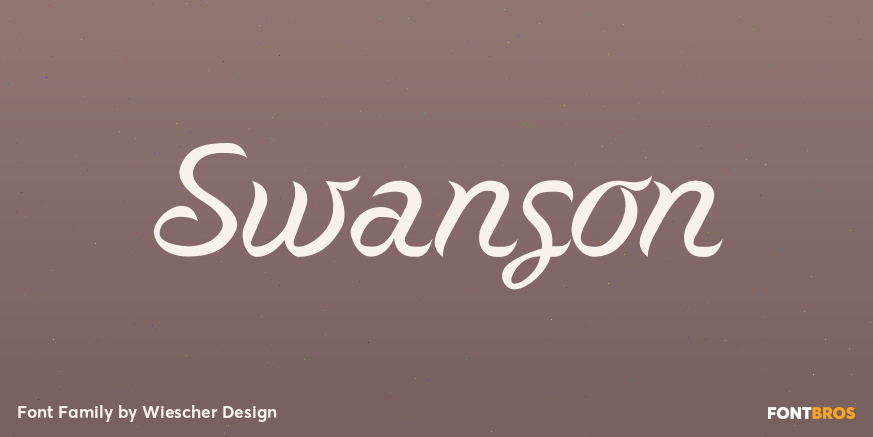
Swanson
About Swanson
'Swanson' is the son of the swan. This doesn't make a lot of sense to non-type designers, so I need to explain. The late, great Italian type designer, Aldo Novarese, designed around 1950 a typeface for Nebiolo that he called 'Cigno' which…